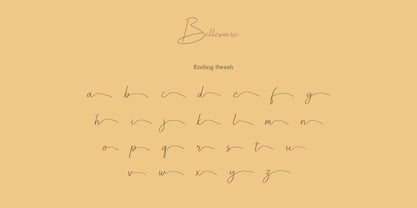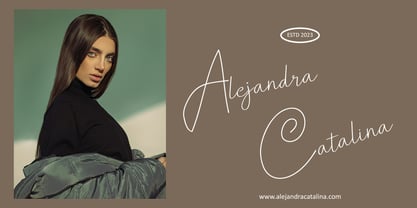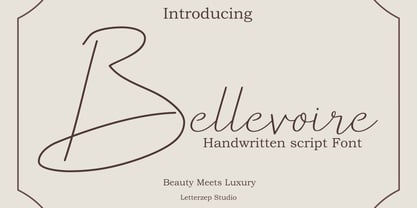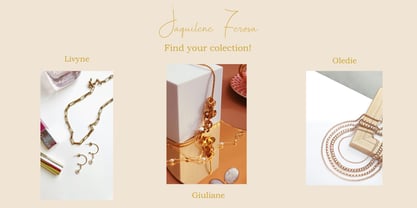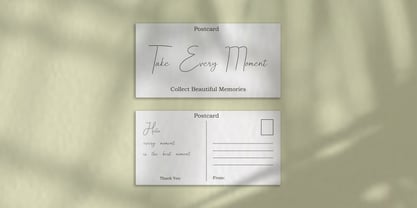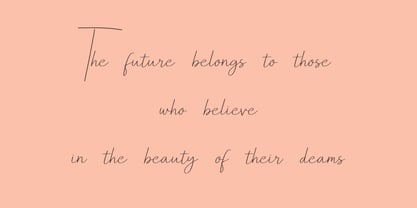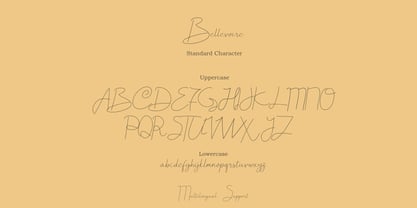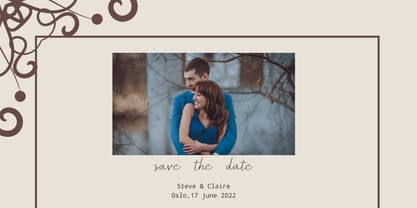
Bellevoire
Bellevoire is a graceful and elegant handwritten font designed to bring beauty and sophistication to every project. Featuring smooth flowing strokes, natural letter connections, and a timeless script style, Bellevoire Script creates a warm and luxurious impression that feels both personal and professional.
Perfect for branding, wedding stationery, logos, packaging, social media, and other creative designs, this font adds a touch of charm and authenticity to any composition. Its stylish curves and handwritten character make it ideal for projects that require elegance, romance, and creativity.
Features:
• Uppercase & Lowercase Letters
• Numbers & Punctuation
• Multilingual Support
• Ending Swash
Perfect For:
• Wedding Invitations
• Luxury Branding
• Logo Design
• Product Packaging
• Beauty & Fashion Projects
• Social Media Content
• Greeting Cards
• Photography Watermarks
• Quotes & Typography Designs
Bellevoire Script is crafted to help your designs stand out with elegance, personality, and timeless handwritten beauty.